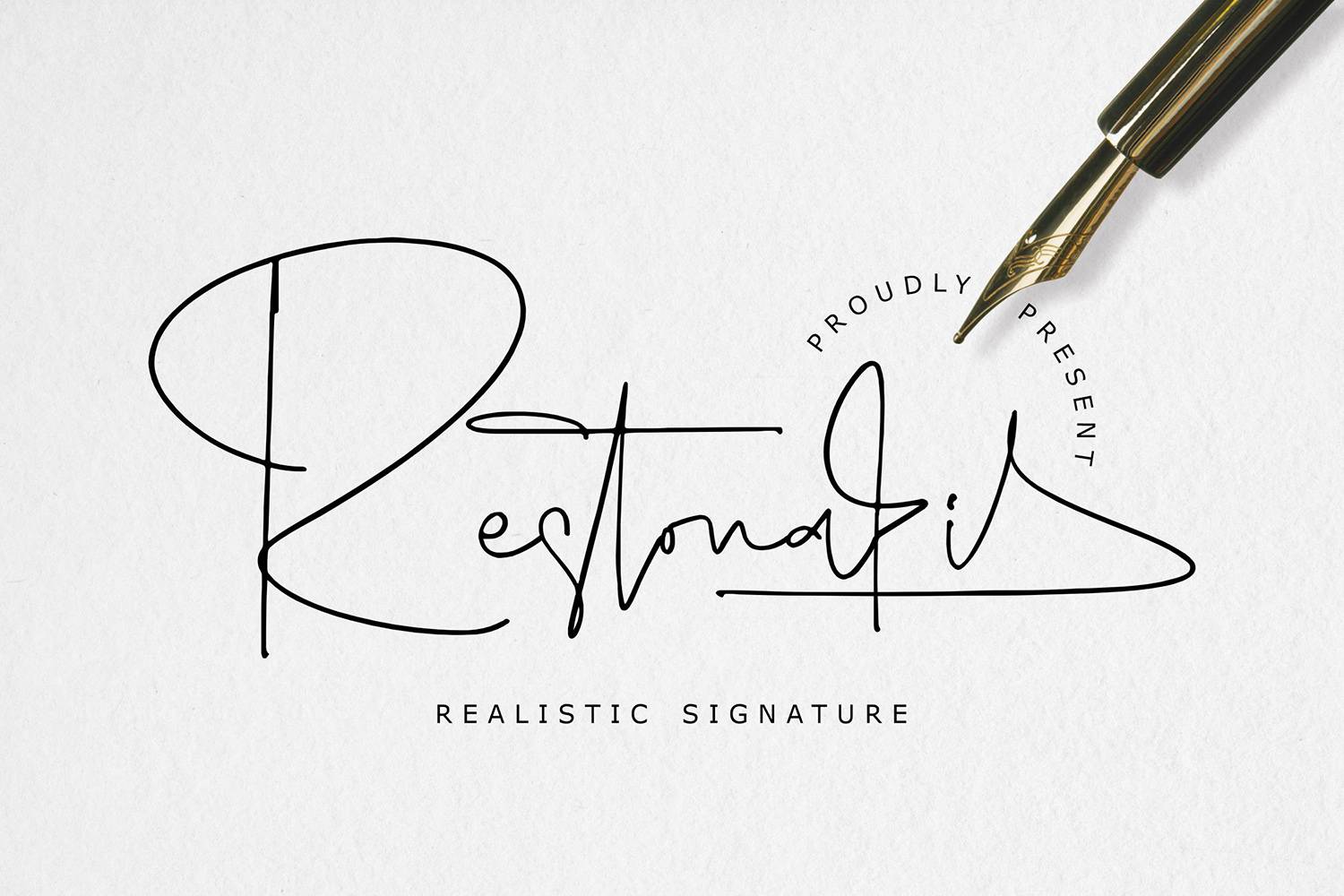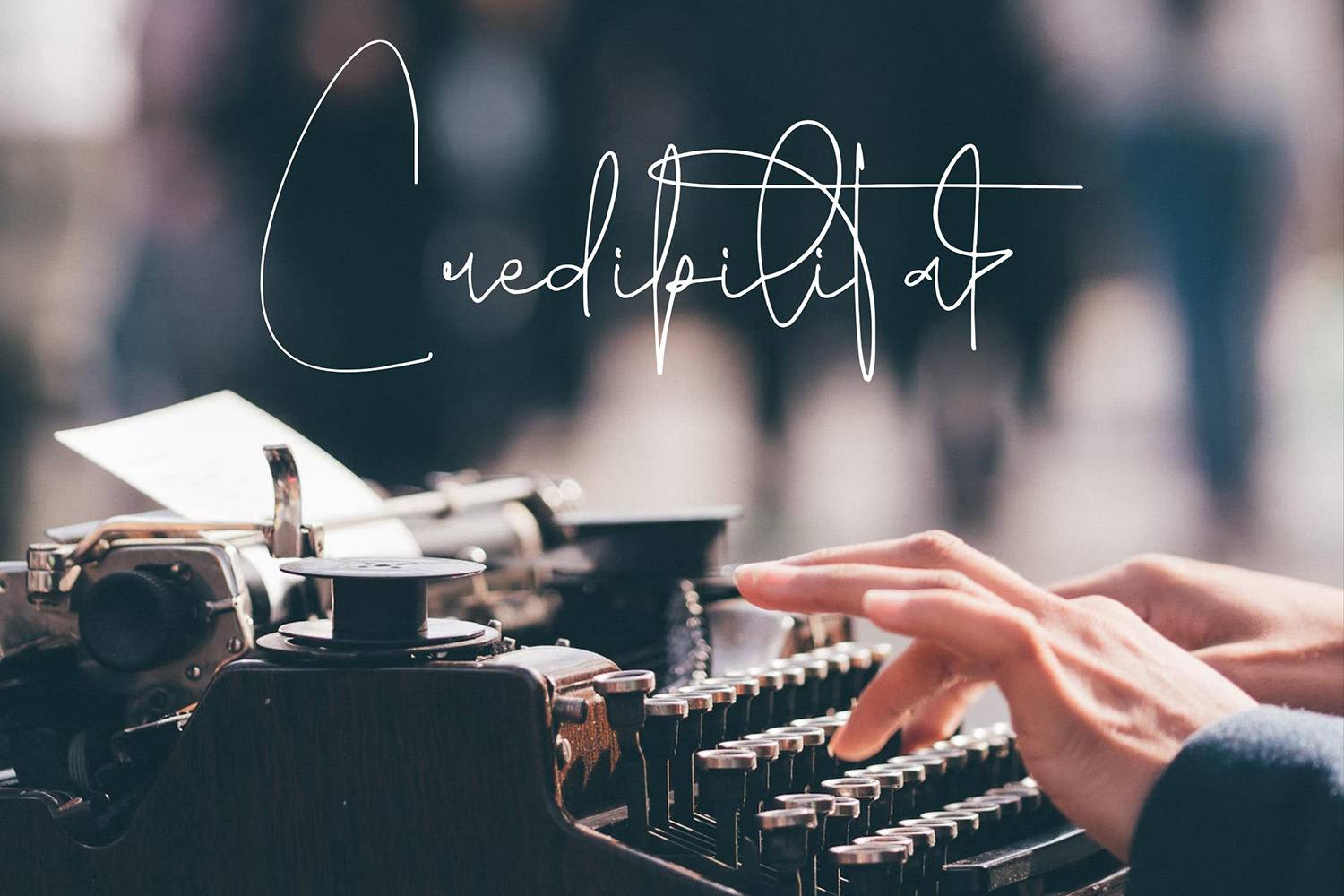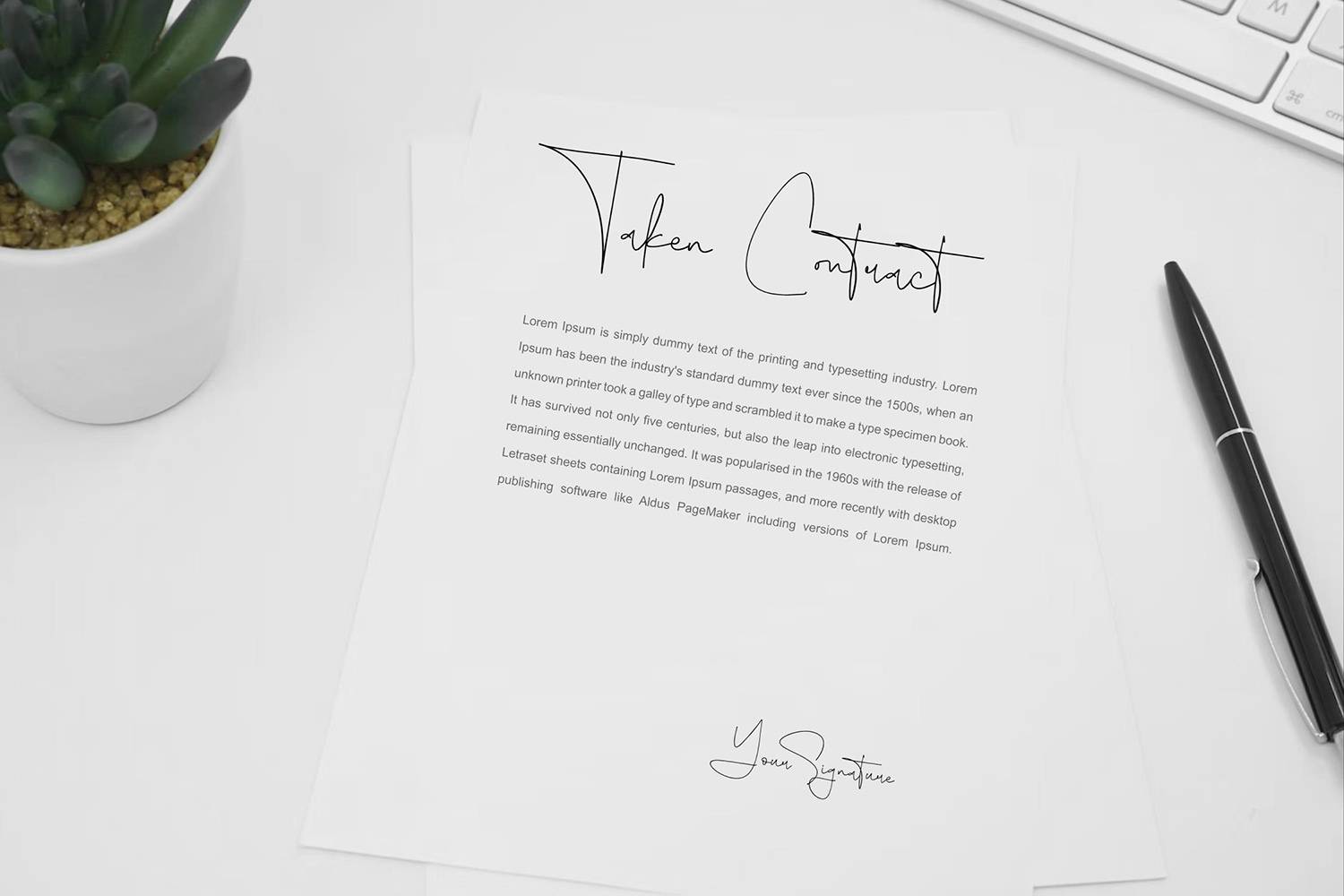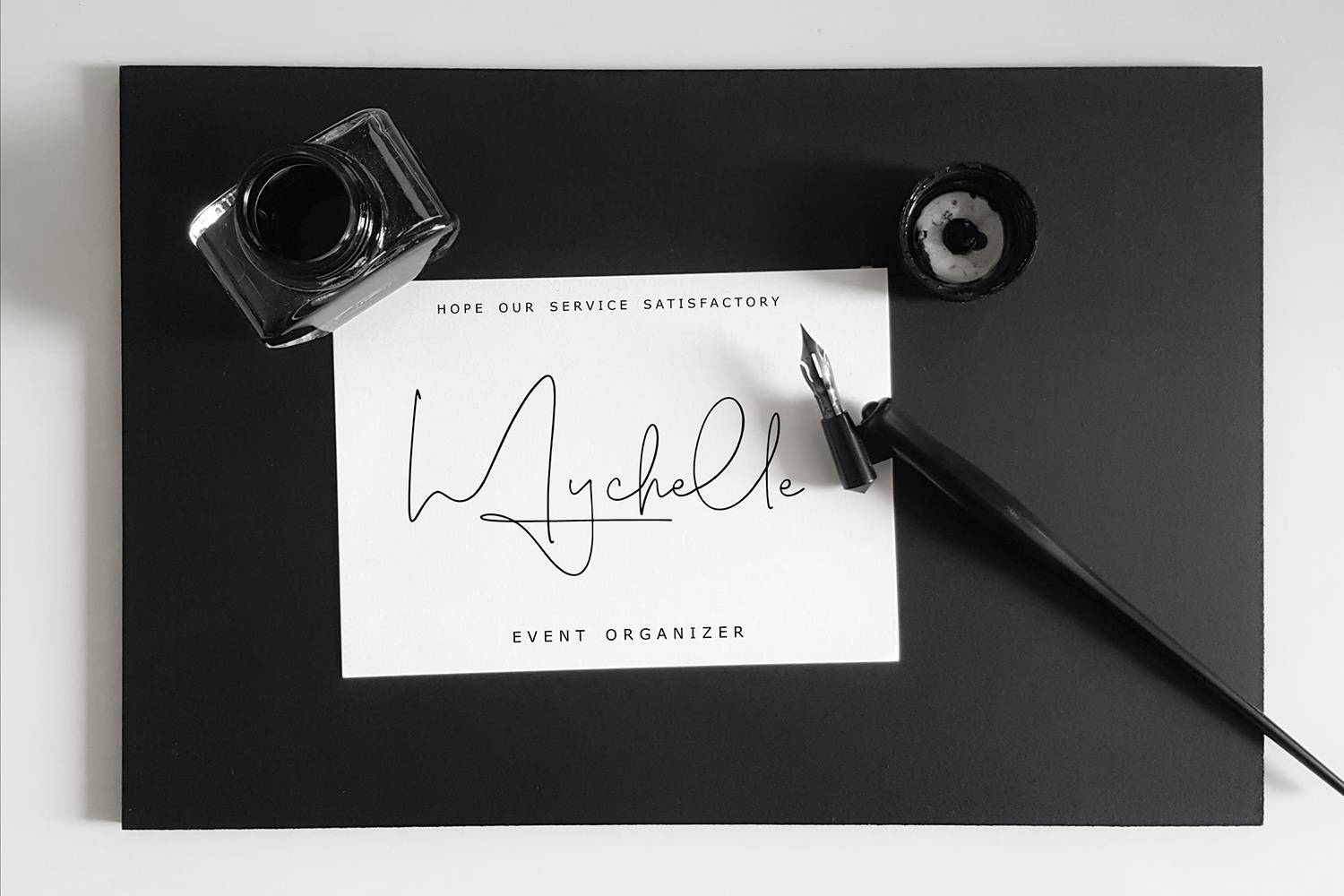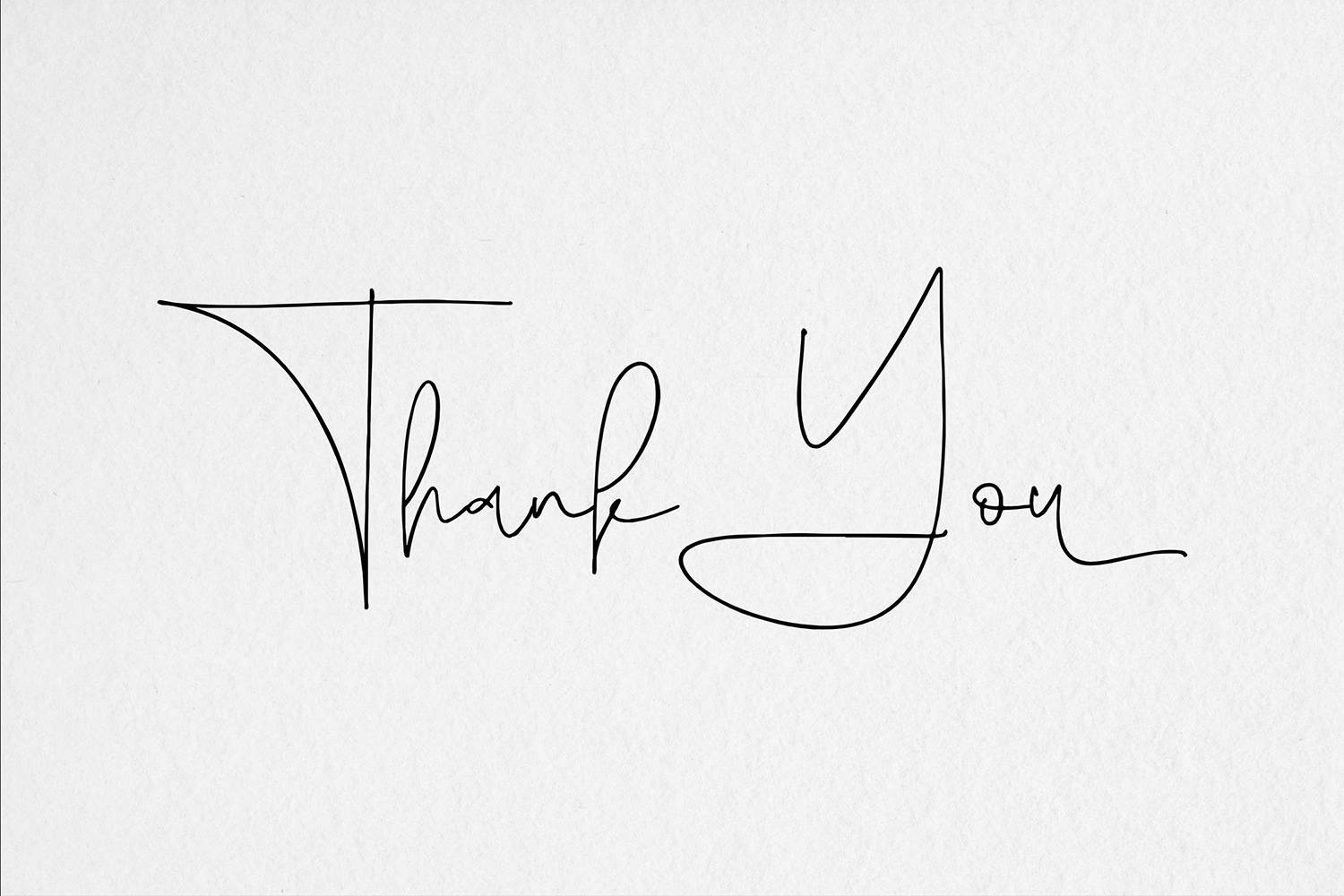
Restonasi is a delicate, handwritten script font characterized by its thin, airy lines and elegant, flowing letterforms that blend casual charm with artistic flair. Its tall, narrow characters and unique swooping strokes give it a playful yet refined personality, making it perfect for creative branding, invitations, and personal projects that seek a light, sophisticated touch. This font works beautifully in small doses for logos and standout headlines where a touch of individuality and grace is desired.
Restonasi Font
About Restonasi Font